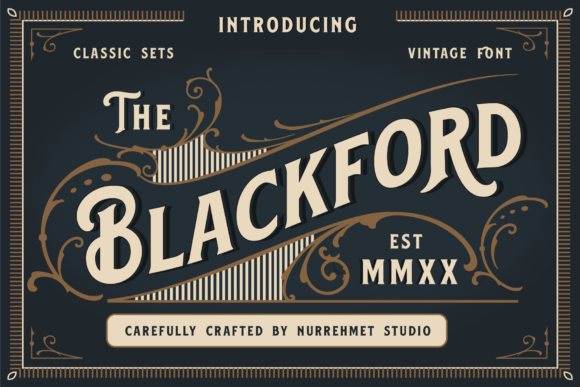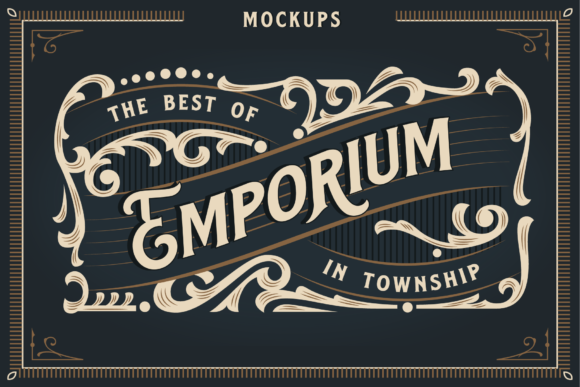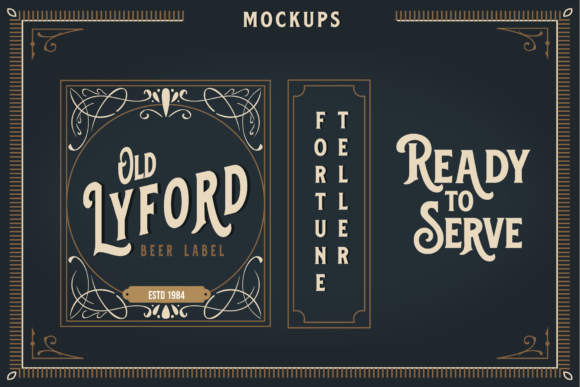
Blackford Font
Blackford feels vintage and nostalgic. Use this beautiful display font to add that special retro touch to your upcoming projects, be it branding, packaging, logos and more!